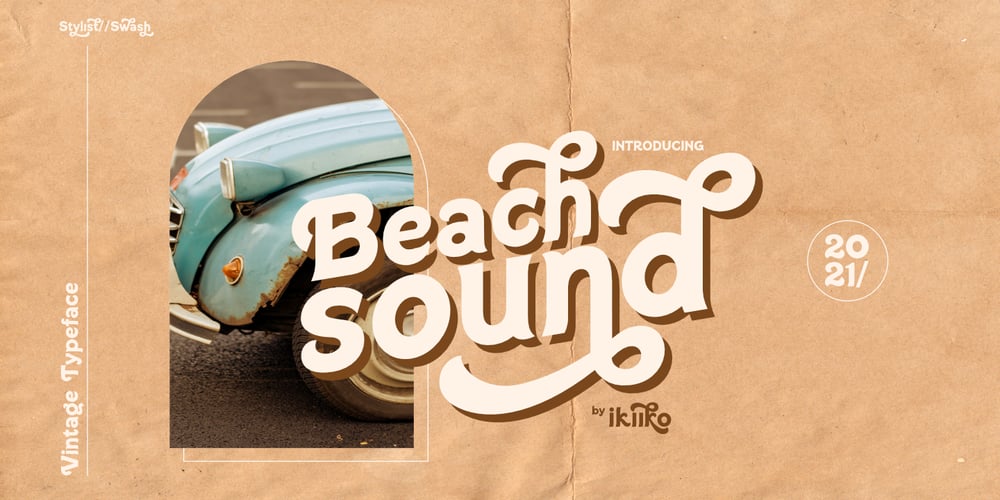
Beach Sound Font Family was designed by Andhika Pradana and published by IKIIKOWRK. Beach Sound contains 1 styles and family package options. Introducing Beach Sound, created by ikiiko.A vintage stylish font It has both modern and retro look. The perfect one to create layout design in 60s or 70s design projects. This font have unique stylist and swashes that to give to your brand logo, poster food & beverages brand, cookies and another project to a have unique or vintage look.What’s included? Uppercase & Lowercase Number & Punctuation Complete Stylist & Swashes Multilingual Support Format File : TTF & OTF Works on PC & Mac Get also a good offer & FREEBIE at our site : www.ikiiko.comEnjoy our font and if you have any questions, you can contact us by email : ikiikowrk@gmail.com